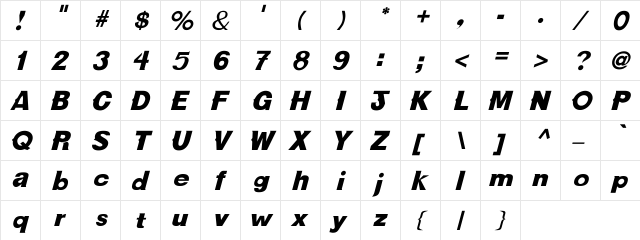
NewBold Italic Italic
Design Context for NewBold Italic Typeface
NewBold Italic is a composed and adaptable typeface that performs quietly and consistently across a wide range of design contexts. The slanted form adds forward momentum and visual energy. Its bold stroke weight gives it real presence on the page.
Pro Tip: Use NewBold Italic for emphasis, pull quotes, and subheadings where its slanted energy can add rhythm to the layout.